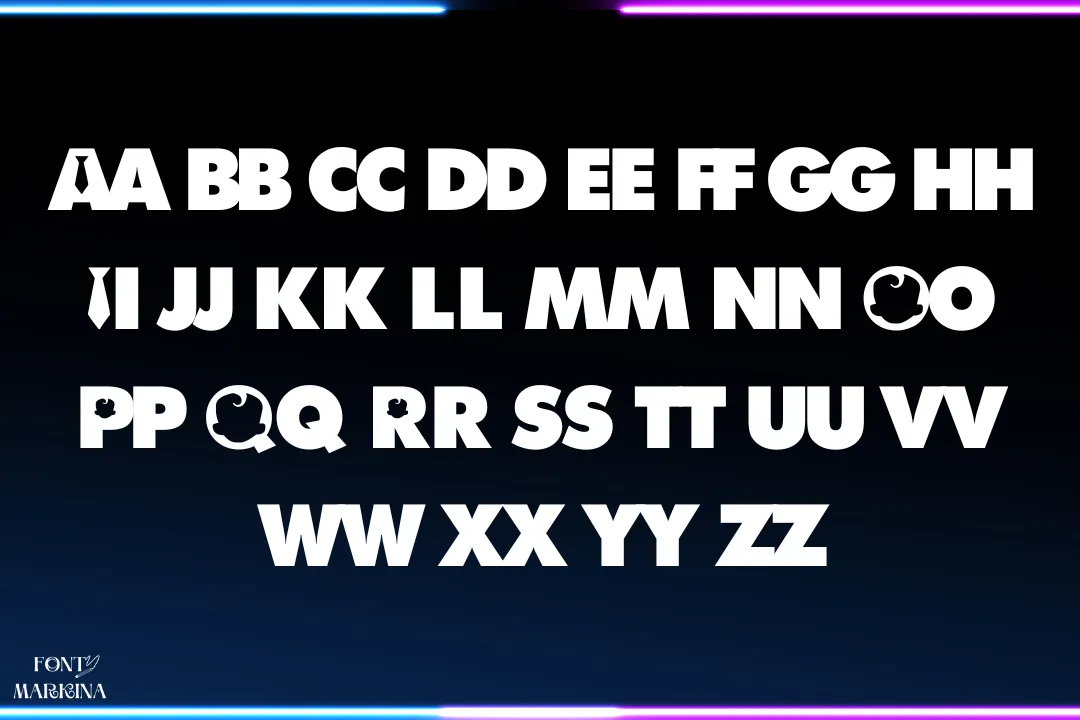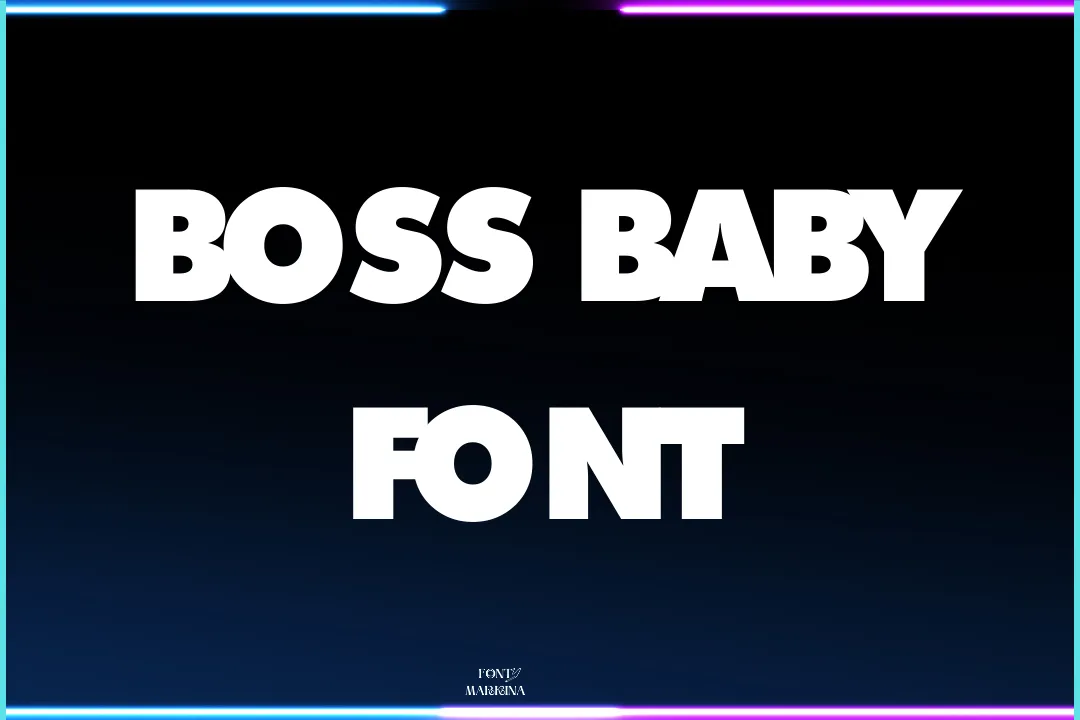
A famous American movie named Boss Baby founded the Boss Baby Font. It has a bold stylish texture family that is perfect for multiple design projects. This font was developed by an American typographic designer named TFonts1 in 2018.
It has many awesome characters and styles along with special glyphs and 242 interesting symbols including capital letters, small letters, symbols, updated icons, basic punctuations, and plenty of memorable structures that would be perfect for many mixtures of your projects.
The online generator tool will change your simple design look into stylish characters. You can also use it for CSS and Adobe Photoshop. The Boss Baby is similar to the bamini tamil font. It has an outstanding texture look appearance for the viewers.
Uses of Boss Baby Font
It is the name of a famous American movie and due to its stylish and bold texture, it can be used for numerous projects. This typeface can be applied to creating website designs, book covers, logo designs, advertisements, social media posts, and many others.
The Boss Baby is a cool movie font. You can use it for movie titles, headings, cloth designs, and banners. This typeface is also utilized for making YouTube thumbnails, Instagram bio descriptions, Adobe Photoshop and so on.
- Greeting or Invitation cards
- Website Templates
- Banners and Brochure layouts
- Website templates
- Illustrator
What type of style is Boss Baby texture?
It was founded by a famous American movie named Boss Baby. It has a bold stylish texture family that is perfect for multiple design projects.
Who is the designer of the foss Baby Boss typeface?
This font was developed by an American typographic designer named TFonts1 in 2018.
Where can I use Baby Boss texture?
You can use it for multiple projects because it has bold and stylish structures.